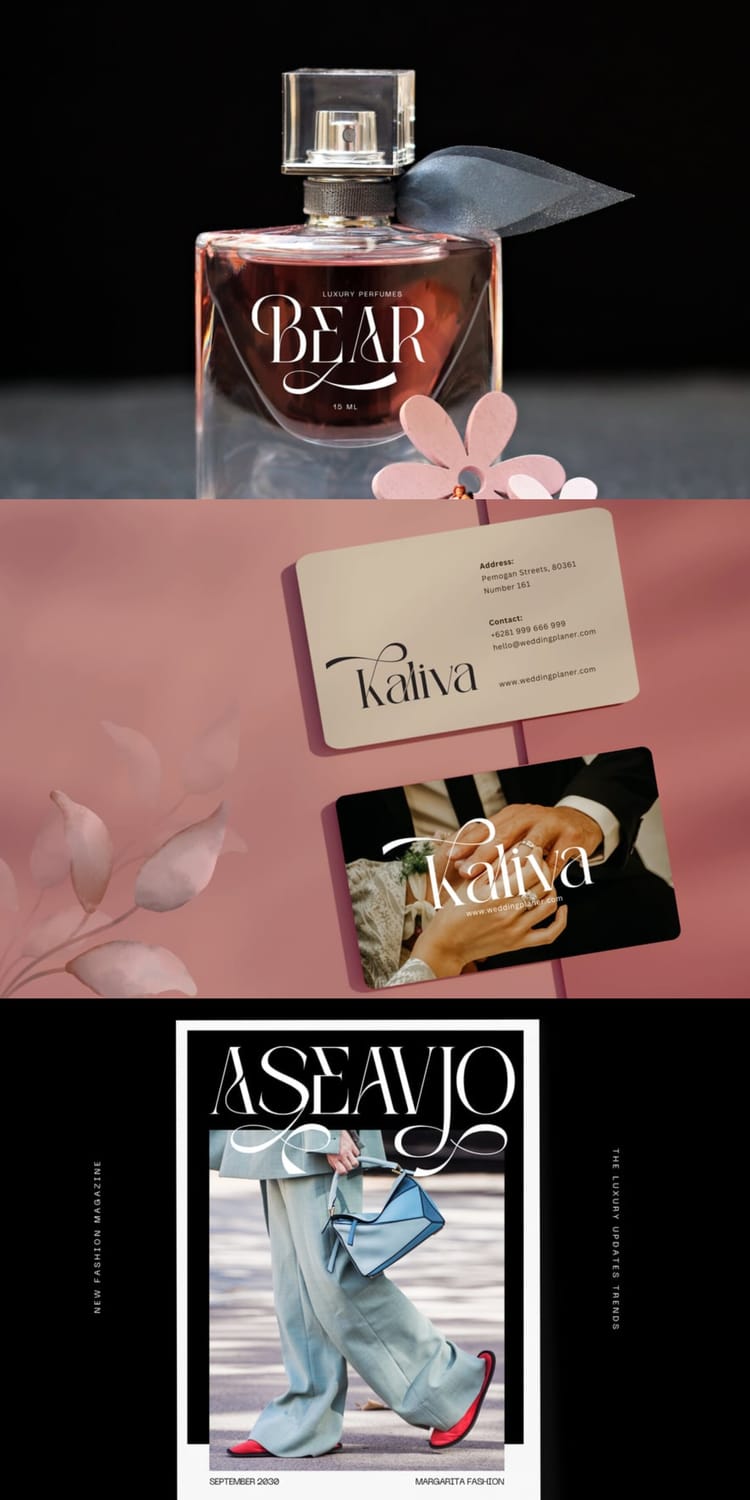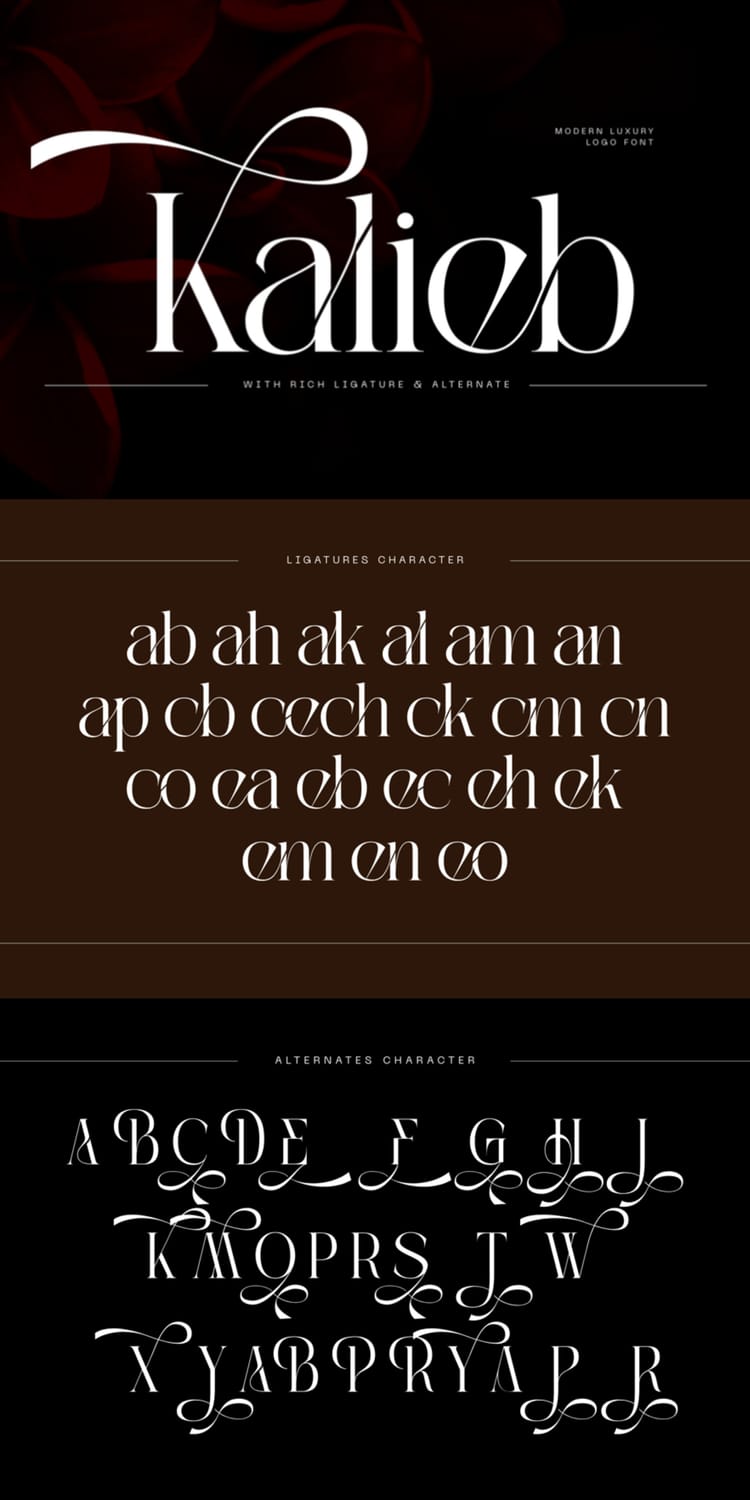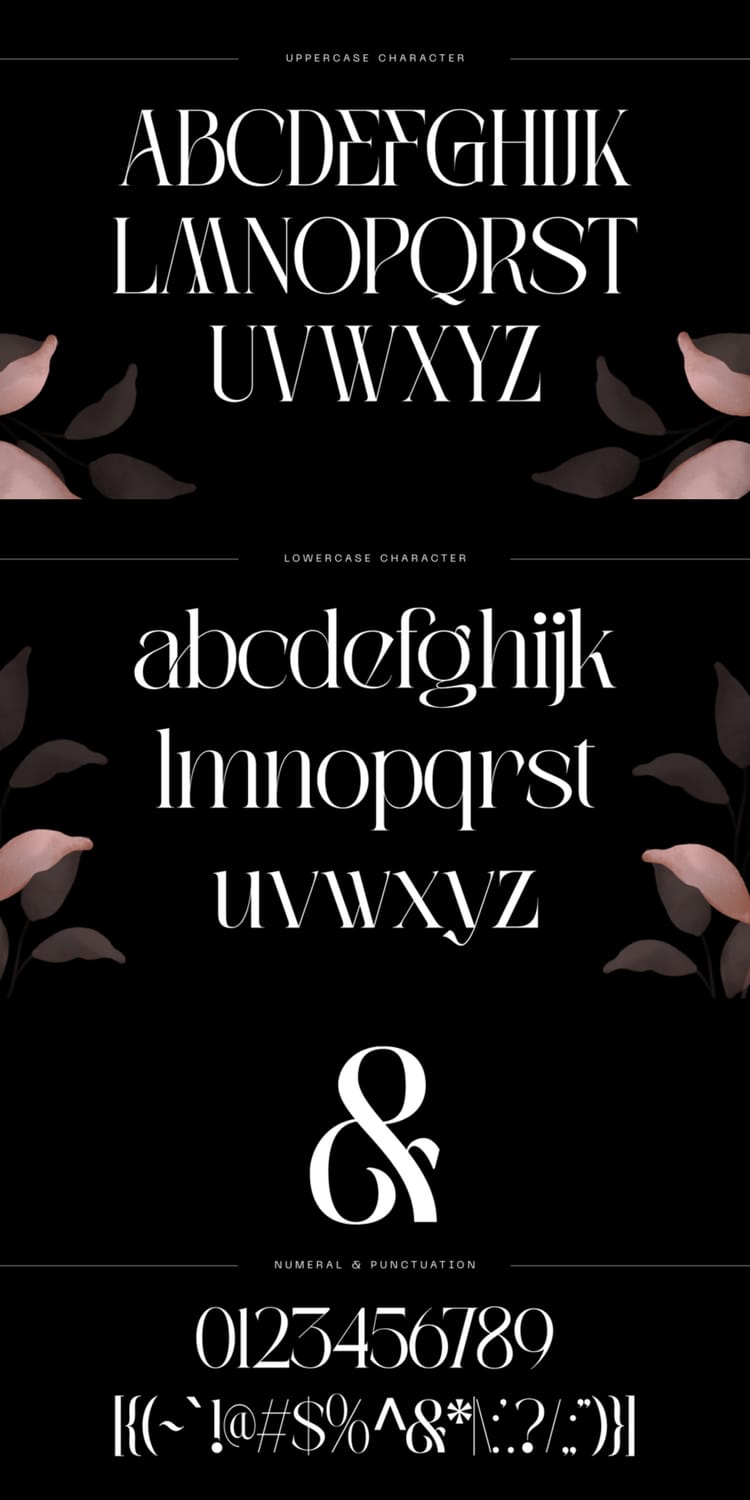
In the 2026 design landscape, "loud" is out and "intention" is in. As the "Quiet Luxury" movement matures from a fashion trend into a fundamental branding pillar, the burden of proof has shifted from complex graphics to the raw architecture of the page: the typography.
For senior designers and strategists, this evolution demands a move away from safe, overused geometric sans-serifs toward typefaces that command authority without shouting. The right modern serif does more than display text—it establishes a brand’s pedigree through high-contrast strokes, razor-sharp terminals, and refined ligatures that mimic the tactile quality of a letterpress.
In this guide, I’ve curated 15 modern serifs specifically for high-end identities—from "Editorial Chic" faces perfect for 4K displays to "Organic Minimalist" cuts that feel human yet polished. Whether you’re repositioning a boutique skincare line or anchoring a luxury real estate launch, these fonts are your 2026 toolkit for creating visual silence that speaks volumes.
The Premium Pricing Correlation: Research in consumer psychology suggests that serif typefaces are perceived as more "reputable" and "expensive" than their sans-serif counterparts. In a 2025 study on luxury e-commerce, brands utilizing high-contrast modern serifs saw a 24% increase in perceived brand authority compared to those using standard geometric sans-serifs.
The "Quiet Luxury" Mandate: As consumers retreat from "logomania," the personality of a brand is carried by its primary typeface. A modern serif provides the "visual silence" necessary to compete in the luxury sector, where exclusivity is signaled through refinement rather than noise.
Performance on 4K/8K Displays: Modern serif design has caught up with hardware. Unlike the serifs of the early digital era that felt "clunky" on low-res screens, 2026’s modern cuts are engineered with optical sizing. This ensures that razor-thin hairlines remain crisp on mobile Retina displays, maintaining a polished brand image across all touchpoints.
"Typography is the craft of endowing human language with a durable visual form." — Robert Bringhurst. In 2026, that form must be as sophisticated as the audience it serves.
Not every serif earns the "modern" moniker, and even fewer possess the gravitas required for high-end positioning. To make this list, a typeface must do more than just look expensive—it must demonstrate exceptional technical craftsmanship and a clear point of view.
When evaluating these selections, we focused on three "pillars of premium" design:
Extreme Contrast: The dramatic interplay between thick stems and razor-thin hairlines that creates an immediate "editorial" feel.
Contemporary Geometry: A departure from traditional humanist shapes in favor of sharper terminals and more intentional, structured curves.
Distinctive Personality: The inclusion of unique ligatures and stylistic alternates that allow a brand to feel bespoke without the cost of a custom-drawn logotype.
The following 15 typefaces represent the pinnacle of current typography. They are the work of world-class foundries and independent designers who understand that in the world of luxury, the magic is in the details.
Kalieb Luxury is a quintessential choice for 2026's "Quiet Luxury" aesthetic, offering a masterclass in typographic harmony and refined elegance. Its standout feature is a collection of rich ligatures and graceful alternates that allow designers to create bespoke, high-end logos with a hand-crafted feel. The font’s high-contrast strokes and sharp terminals make it exceptionally well-suited for premium sectors like beauty, fashion, and editorial design where visual prestige is paramount. Because it includes both Regular and Italic styles, it provides the versatility needed to anchor a sophisticated brand identity across various touchpoints, from social media advertisements to luxury product packaging.
Fasrie stands out as a masterclass in versatility, offering both Regular and Condensed styles to suit a wide array of high-end branding applications. Its architecture is defined by clean lines and smooth curves that lend an unmistakable touch of class to display headings and editorial layouts. This typeface is particularly effective for creative directors because it includes unique stylistic alternates and OpenType ligatures, allowing for highly customized, "one-of-one" logo designs that resonate with luxury audiences. Whether it's anchoring a minimalist skincare brand or a sophisticated magazine header, Fasrie’s elegant profile ensures that the brand’s visual identity feels both modern and timeless.
Bolin Gerii is a stunning blend of handmade charm and Modern Victorian hand-lettering, bridging the gap between 19th-century classicism and contemporary luxury. Its architecture features a sophisticated array of ligatures and stylistic alternates that allow for highly expressive, custom-feeling typography in fashion and lifestyle branding. This font is an ideal choice for projects requiring a "vintage-luxe" touch, such as high-end magazine publishing or premium logotypes, where its rounded, elegant strokes command immediate attention. By combining traditional craftsmanship with modern readability, Bolin Gerii provides a unique visual gravity that perfectly anchors a 2026 "Quiet Luxury" identity.
Chelon is a classy serif font that expertly balances high-contrast strokes with a refined, modern aesthetic. Its inclusion on this list is due to its exceptional versatility, as it is designed to complement both digital creative products and traditional printed media like posters or business cards. With a character set that includes unique alternates and extensive multilingual support, Chelon offers a "custom-tailored" feel that is essential for sophisticated branding and personal projects. As seen in the image, its graceful architecture makes it a premier choice for designers looking to convey elegance and beauty in their visual storytelling.